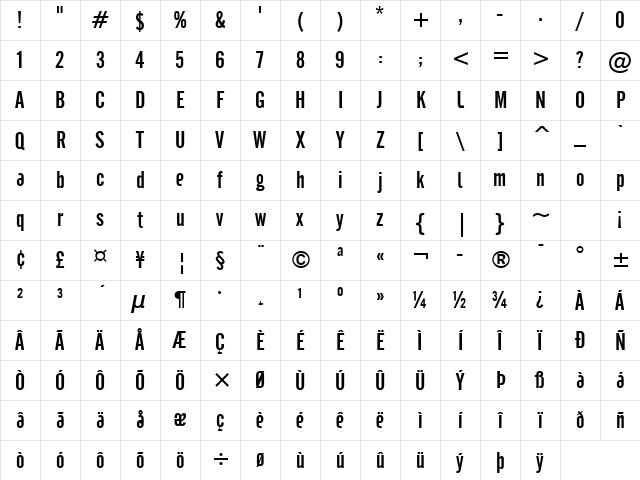
cafeta Regular
Design Context for cafeta
cafeta is a composed and adaptable typeface that performs quietly and consistently across a wide range of design contexts.
Pro Tip: Use cafeta in both headline and body roles to test its range before committing to a single application.